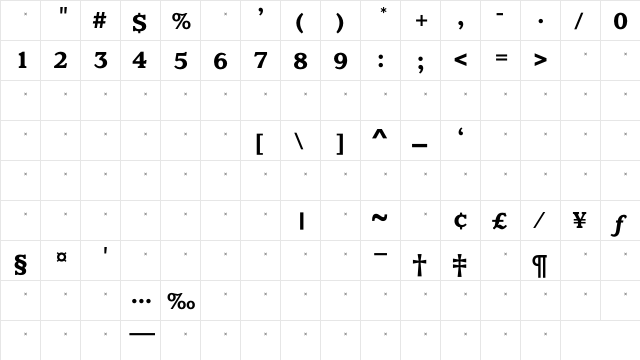
ClaremontBoldTab Regular
Design Context for ClaremontBoldTab Typeface
ClaremontBoldTab is a composed and adaptable typeface that performs quietly and consistently across a wide range of design contexts. The heavy weight commands attention and anchors typographic hierarchies.